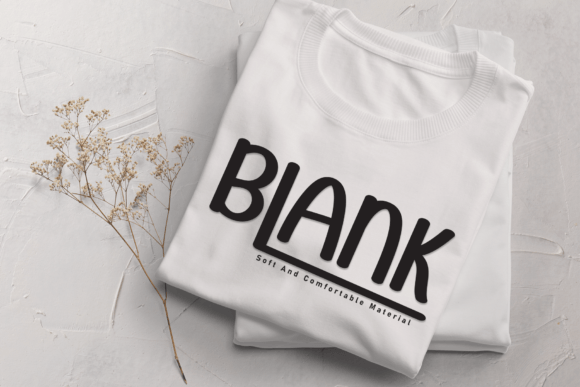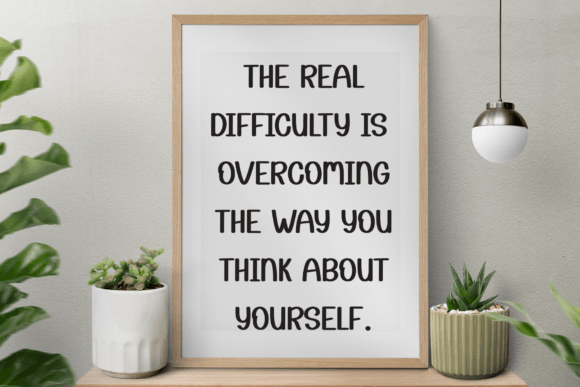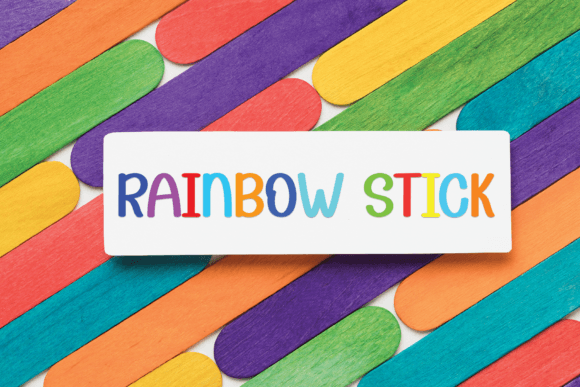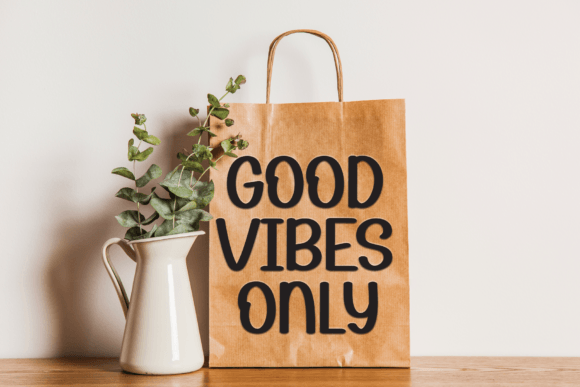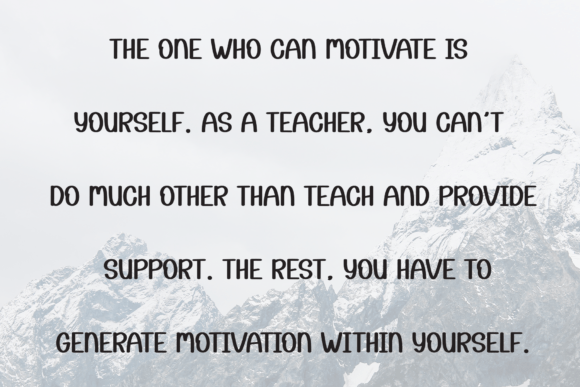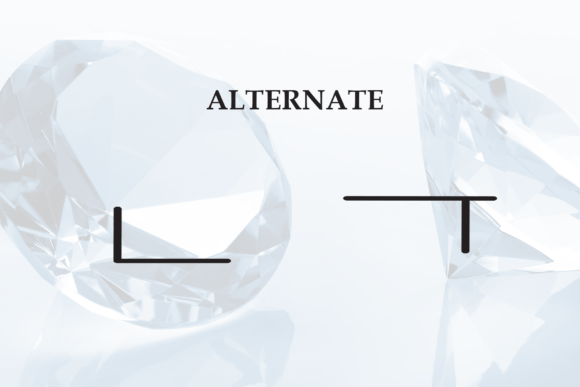
Introducing Crystal Clarity Font: Elevate Your Designs with Timeless Elegance
Are you on the hunt for a font that exudes elegance, sophistication, and a touch of whimsy? Look no further than Crystal Clarity, a stunning handwritten font that is sure to elevate your designs to new heights. With its unique and beautiful touch, Crystal Clarity is the perfect choice for creating eye-catching logos, branding, and quotes that will leave a lasting impression.
Handwritten fonts have a way of adding a personal touch to any design. They evoke a sense of warmth, friendliness, and approachability that is hard to replicate with more formal fonts. And Crystal Clarity is no exception. This lovely font is meticulously crafted to showcase the beauty of handwritten typography, with each letter carefully designed to stand out on its own.
What Sets Crystal Clarity Apart
So, what makes Crystal Clarity so special? For starters, every letter in this font has a unique and beautiful touch that sets it apart from more generic fonts. The attention to detail is evident in every curve, every loop, and every flourish. The result is a font that feels both timeless and modern, with a certain je ne sais quoi that will make your designs come alive.
Crystal Clarity is an incredibly versatile font that can be used in a wide range of design applications. Whether you’re looking to create a stunning logo, develop a cohesive brand identity, or craft inspiring quotes, this font is the perfect choice. Its elegant and refined aesthetic makes it suitable for a variety of industries, from fashion and beauty to lifestyle and wellness.
Why Designers and Crafters Love Crystal Clarity
Designers and crafters alike are drawn to Crystal Clarity for its unique combination of style, sophistication, and playfulness. Here are just a few reasons why:
- Elegant and Refined: Crystal Clarity adds a touch of elegance and refinement to any design, making it perfect for high-end brands and luxury products.
- Unique and Memorable: The font’s unique and beautiful touch ensures that your designs will stand out from the crowd and leave a lasting impression.
- Versatile: Crystal Clarity can be used in a wide range of design applications, from logos and branding to quotes and social media graphics.
- Easy to Read: Despite its elegant and refined aesthetic, Crystal Clarity is incredibly easy to read, making it perfect for body text and longer-form content.
Tips for Using Crystal Clarity in Your Designs
To get the most out of Crystal Clarity, here are a few tips to keep in mind:
- Pair it with a neutral font: Crystal Clarity is a statement font, so it’s best paired with a neutral font that won’t compete for attention.
- Experiment with colors: The font’s elegant aesthetic looks stunning in a variety of colors, from rich jewel tones to soft pastels.
- Don’t be afraid to get creative: Crystal Clarity is a versatile font that can be used in a wide range of design applications, so don’t be afraid to think outside the box and try something new.
In conclusion, Crystal Clarity is a truly exceptional font that is sure to elevate your designs to new heights. With its unique and beautiful touch, elegant aesthetic, and versatility, it’s the perfect choice for designers and crafters looking to add a touch of sophistication and whimsy to their work. So why wait? Download Crystal Clarity today and start creating stunning designs that will leave a lasting impression!